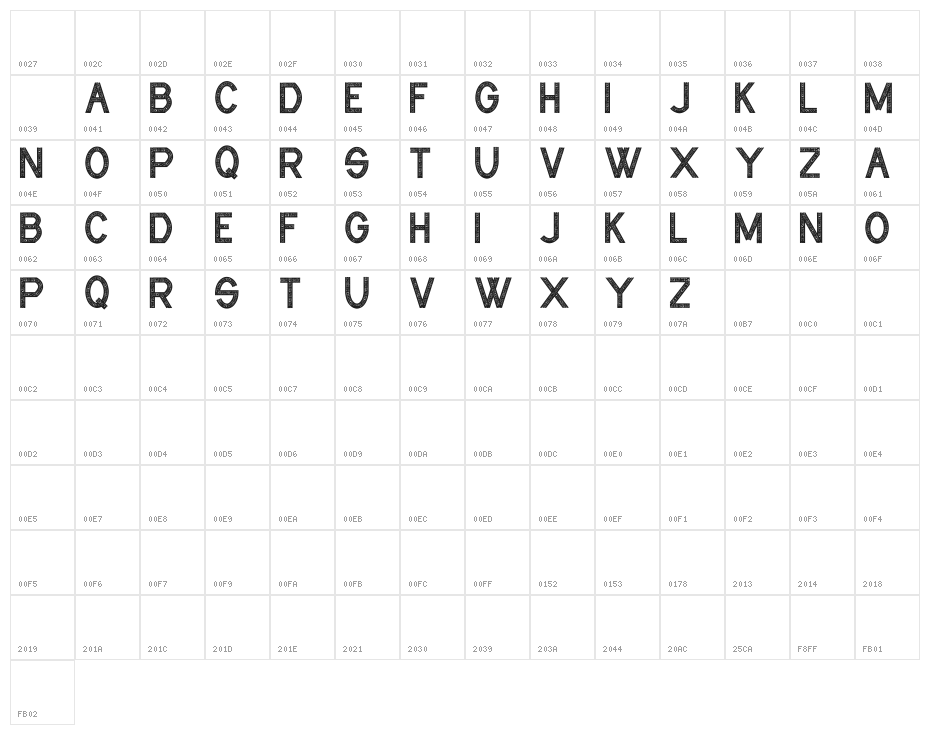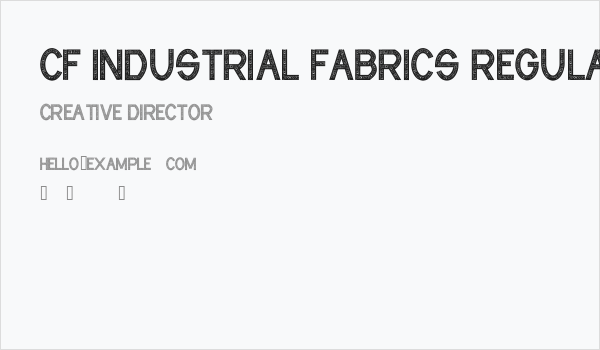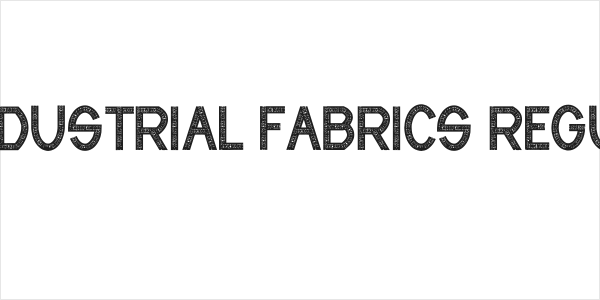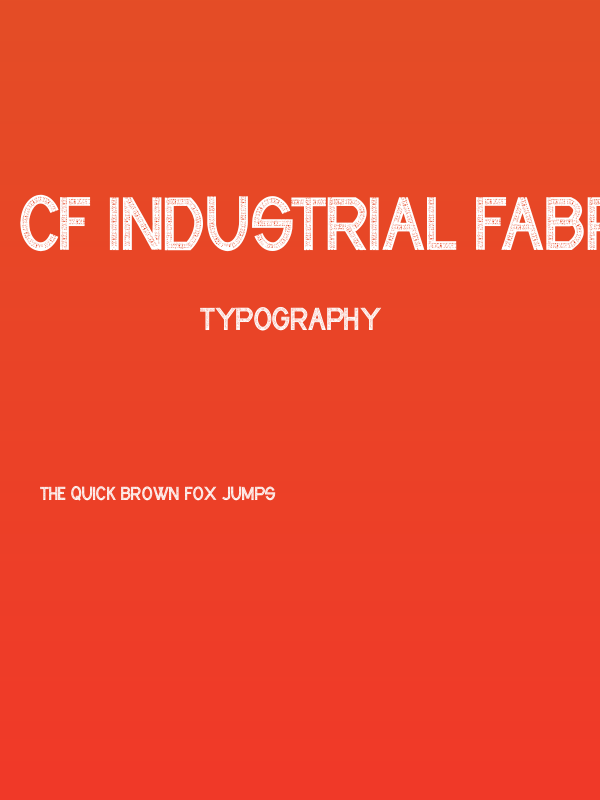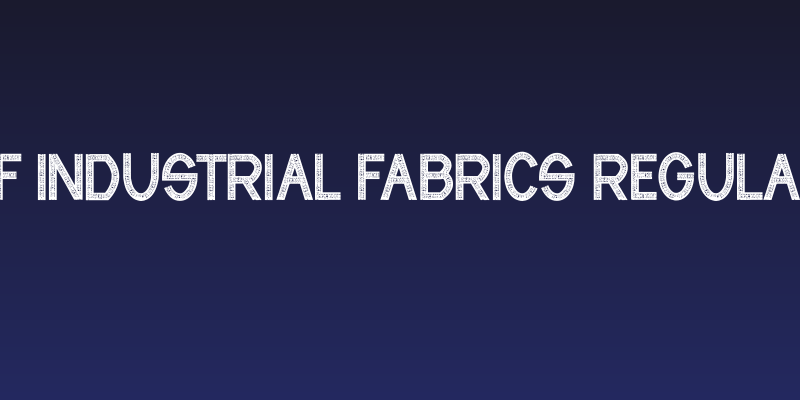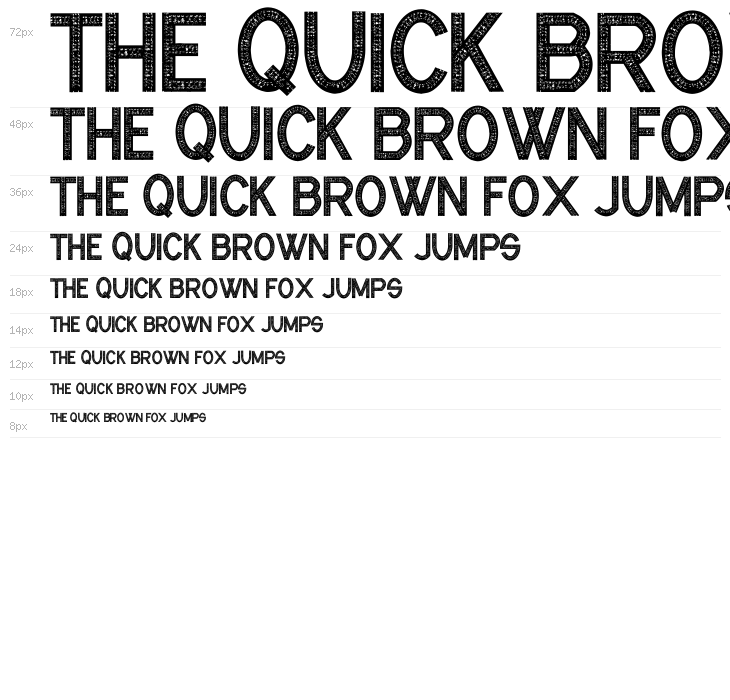
CF Industrial Fabrics Regular Font
CF Industrial Fabrics Regular Description
This font features a bold, industrial design with a textured, fabric-like pattern within each character. The uppercase letters are strong and geometric, with a consistent width and height, creating a uniform appearance. The texture adds a unique, tactile quality, making it stand out for creative projects. The characters are well-defined, with sharp angles and straight lines, giving it a modern and robust look. The font is suitable for projects that require a distinctive and eye-catching style, such as branding, posters, or packaging. Its industrial aesthetic makes it ideal for themes related to machinery, construction, or technology.
| Overall Style | Modern, Industrial |
| Proposed Projects | Ideal for branding, posters, packaging, and themes related to machinery or technology. |